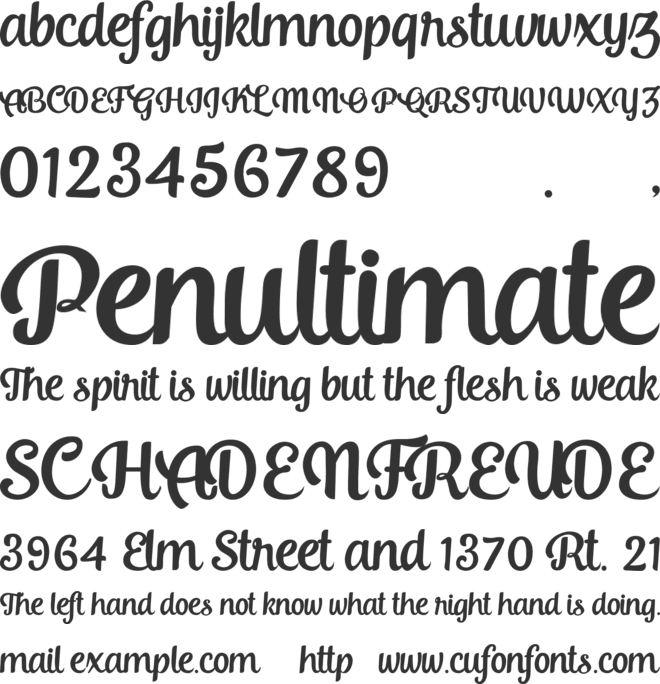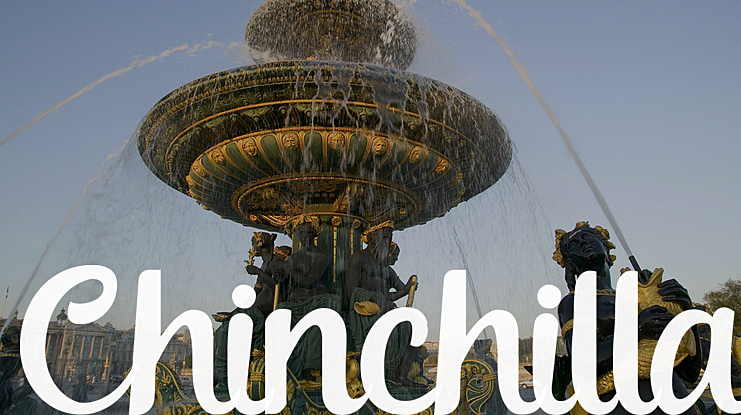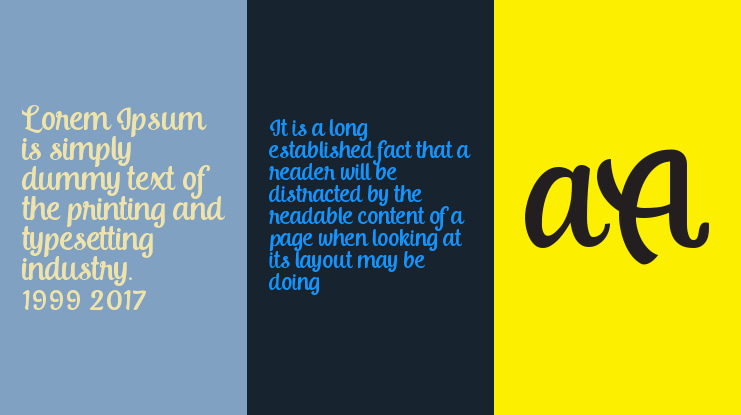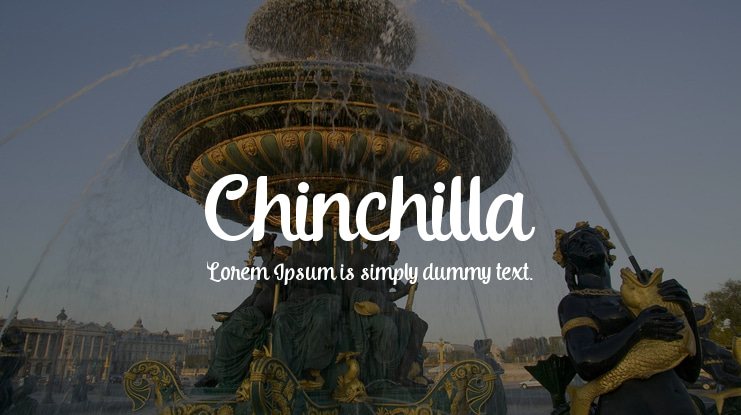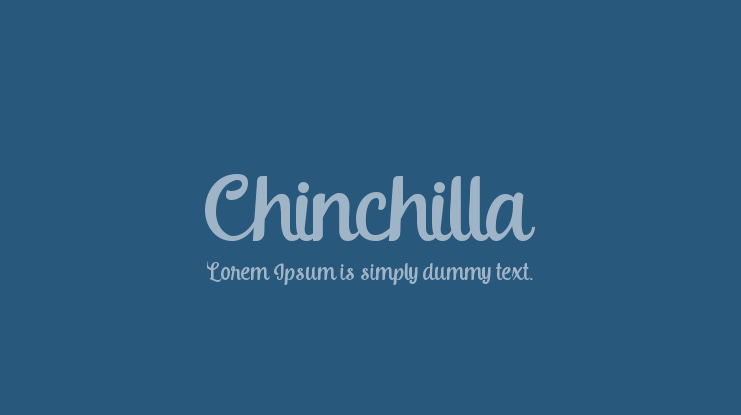
Chinchilla Font
inspired by The Day of the Dead is a Mexican holiday celebrated throughout Mexico,
in particular the Central and South regions, and by people of Mexican heritage elsewhere called "Dia De Muertos"
design with a touch of Sweet, Unique and Fun style. Chinchilla Script font is made in a handwriting style so it is
suitable for use in product design and display titles.